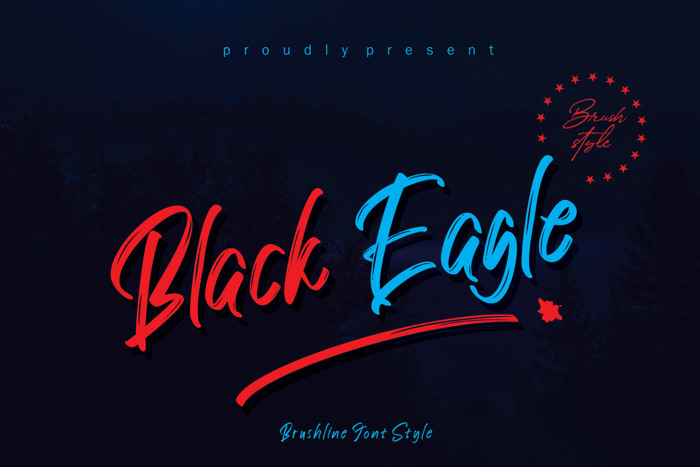
Black Eagle Font
Black Eagle is a flowing handwritten font, described by an elegant touch, perfect for your favorite projects. Fall in love with its incredibly distinct and timeless style and use it to create spectacular designs!